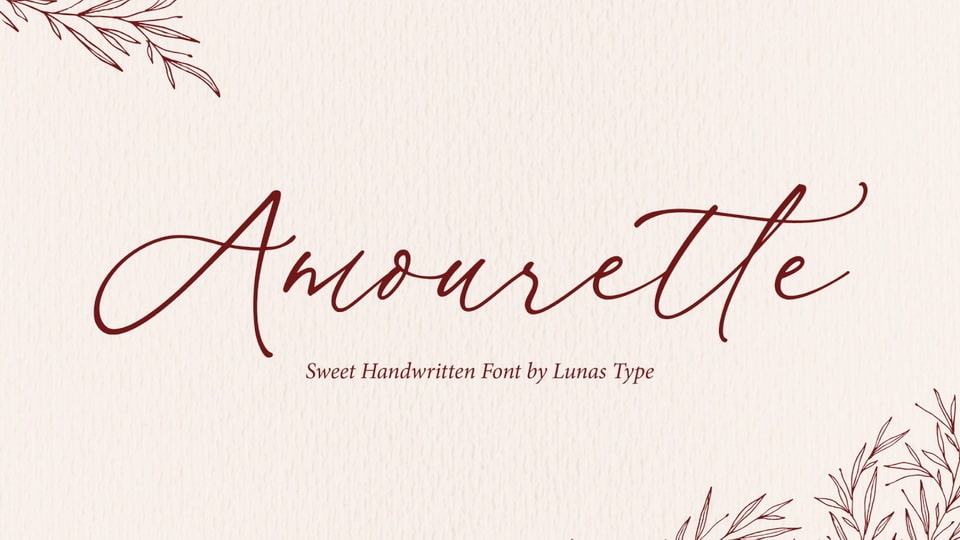
Download Amourette font, a sweet and modern handwritten typeface. Amourette font invokes a feeling of nostalgia and warmth to add the perfect touch of your personality.
Designer: Lunas Type